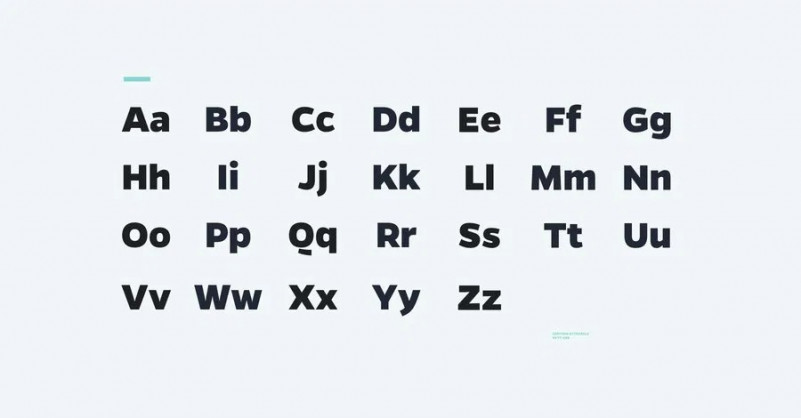
Gentona Font
Gentona Sans Serif Font, Designed for a wide range of applications, Gentona was intended to support the goals of contemporary design paired with a mostly swiss oriented demand on typography – neutrality. Gentona Free Demo available in two weights: Gentona Extrabold and Gentona Extrabold italic.